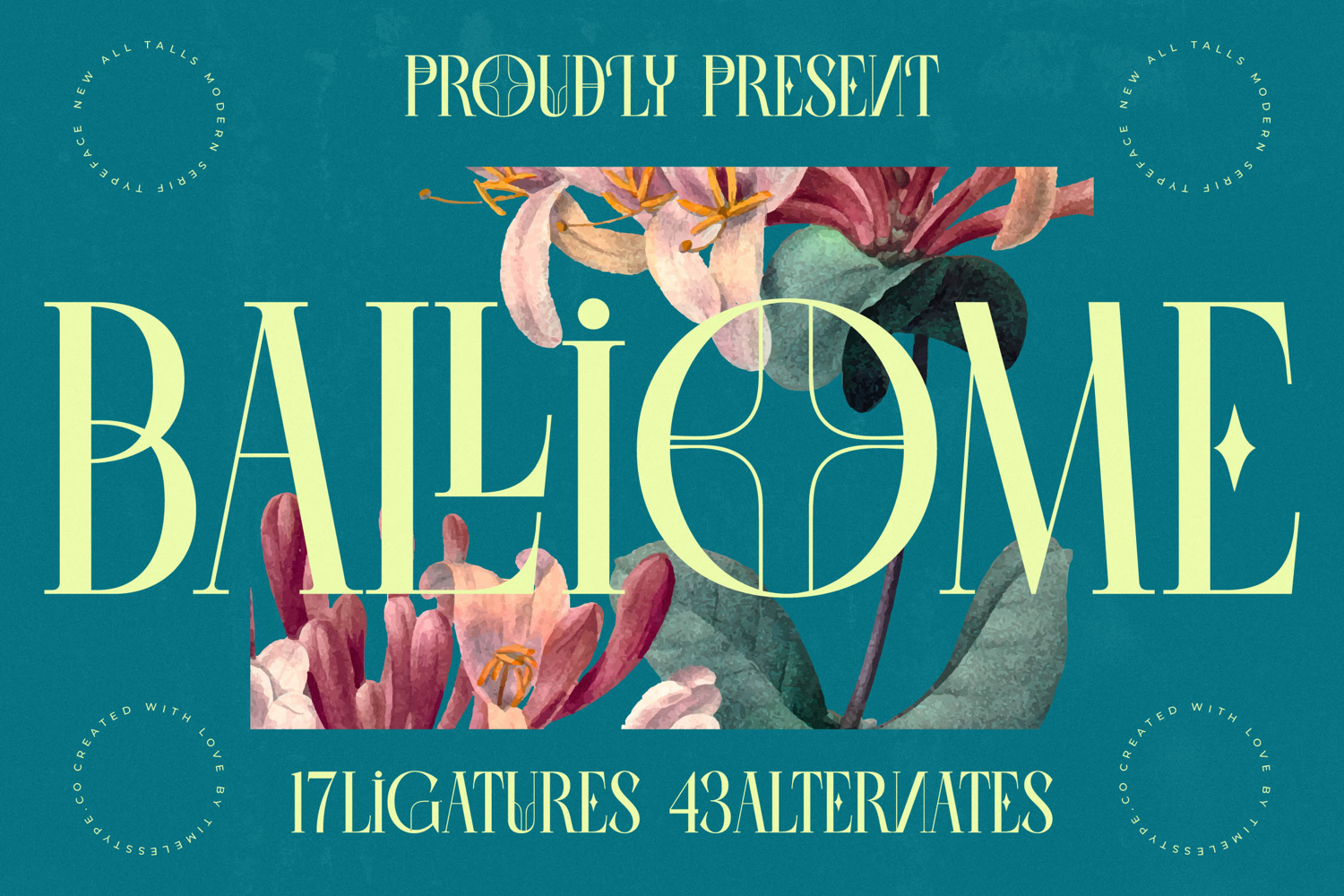
Balliome - Modern Serif Typeface
Command attention and elevate your design aesthetic with Font Balliome - Modern Serif Typeface Serif Display, a truly captivating display serif that redefines modern elegance. Featuring a harmonious blend of classic serif structure with a contemporary edge, this typeface boasts striking high-contrast strokes and exquisite proportions. Its inherent sophistication and clean lines ensure your typography always leaves a memorable and premium impression, making it perfect for brands aiming for a distinctive visual voice.
Experience unparalleled creative freedom with Font Balliome - Modern Serif Typeface Serif Display. This versatile font comes equipped with an impressive array of 17 ligatures and 43 alternates, meticulously crafted to offer designers boundless possibilities. These unique stylistic sets allow for truly distinctive typography, enabling you to tailor every headline, logo, or artistic statement with exceptional flair and originality, ensuring your projects stand out with bespoke character.
Unlock global reach and cultural resonance with Font Balliome - Modern Serif Typeface Serif Display. With its extensive multilingual support, Font Balliome - Modern Serif Typeface Serif Display adapts seamlessly across global markets, making it incredibly versatile for international projects. This comprehensive language coverage ensures your brand's message maintains its intended elegance and professionalism, reaching diverse audiences without compromise, establishing a truly global presence.
Beyond its elegant form, Font Balliome - Modern Serif Typeface Serif Display is engineered for impact across various high-end applications. It is perfect for crafting a compelling premium visual identity, excelling in luxury branding, exclusive product packaging, sophisticated editorial design, and upscale advertising campaigns. Its refined aesthetic makes it ideal for captivating magazine layouts, professional web headers, and any project demanding a touch of timeless class and an impactful statement.